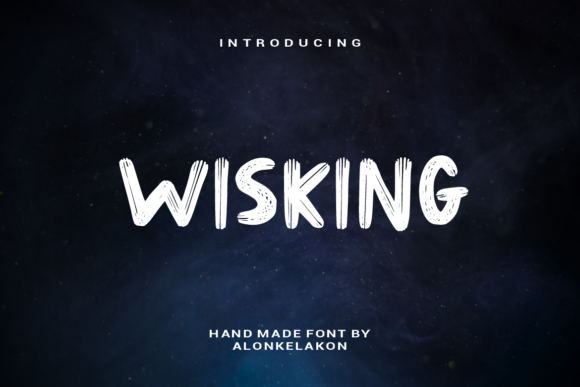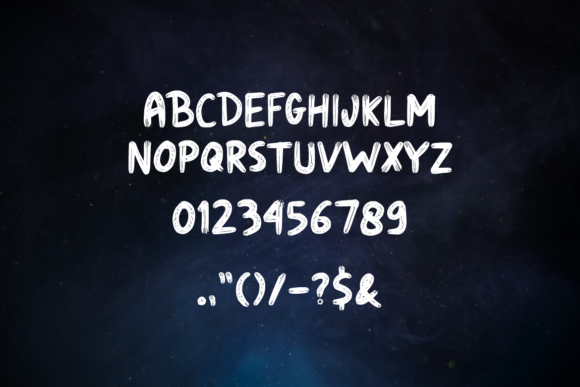
About Wisking Font
Wisking, a cool and brushed handwritten font, brings a casual and friendly vibe to your creative endeavors. This font, characterized by its relaxed and approachable style, is designed to effortlessly enhance your favorite creations, making them stand out with a touch of laid-back charm.
The brushed handwritten appearance of Wisking adds a dynamic and modern flair to your designs. Its cool and casual nature makes it a versatile choice for various creative projects, allowing you to infuse a sense of friendliness into your visual content.
Adding Wisking to your toolkit can make a noticeable difference in the impact of your designs. Whether you’re working on posters, social media graphics, branding materials, or any other creative project, the font’s cool and brushed aesthetic ensures that your content resonates with a contemporary and approachable feel.
Wisking’s versatility extends to a range of applications, from casual marketing materials to personal projects. Use it in your favorite creations, and observe how effortlessly it adds a unique touch, making your designs more engaging and memorable.
In summary, Wisking is more than just a font; it’s a creative asset that elevates your designs with its cool and brushed handwritten style. Add this font to your favorite projects and discover how it brings a sense of casual charm and modern flair, making your creations stand out with ease.